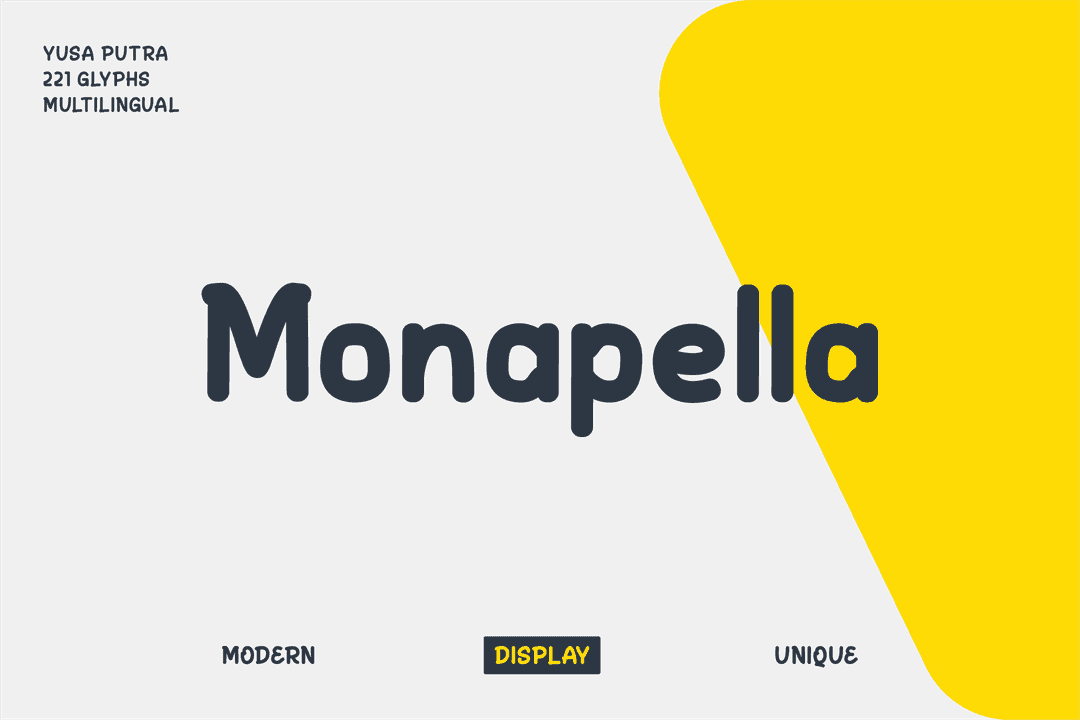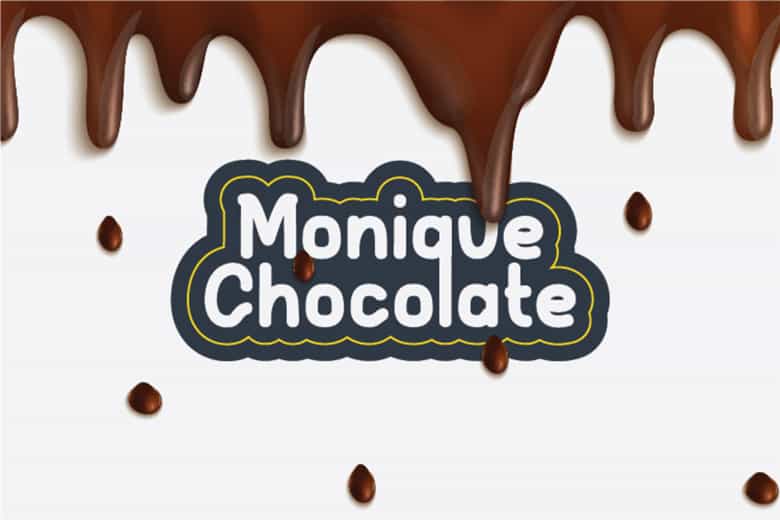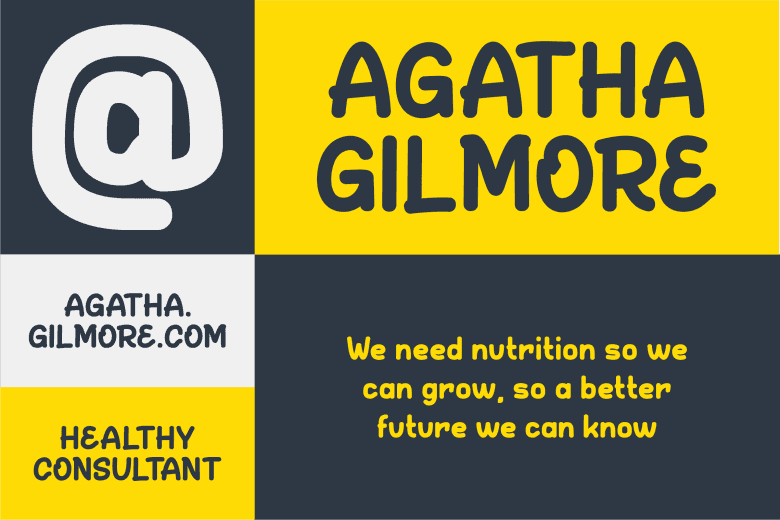
Discover Monapella Font, part of the Sans Serif Display collection—a versatile and unique font perfect for adding a personal touch to your projects. Download it for free and enjoy crafting designs with style, from invitations to social media posts. This font is available exclusively for personal use, giving you the freedom to create without limits. Unlock your creativity with Monapella Font today!
Monapella will be an accessible, uncomplicated display font with natural characteristics that’s easy to use and display. Perfect for matching to a range of work, so incorporate Monapella into your creative inspiration to see its full effect!